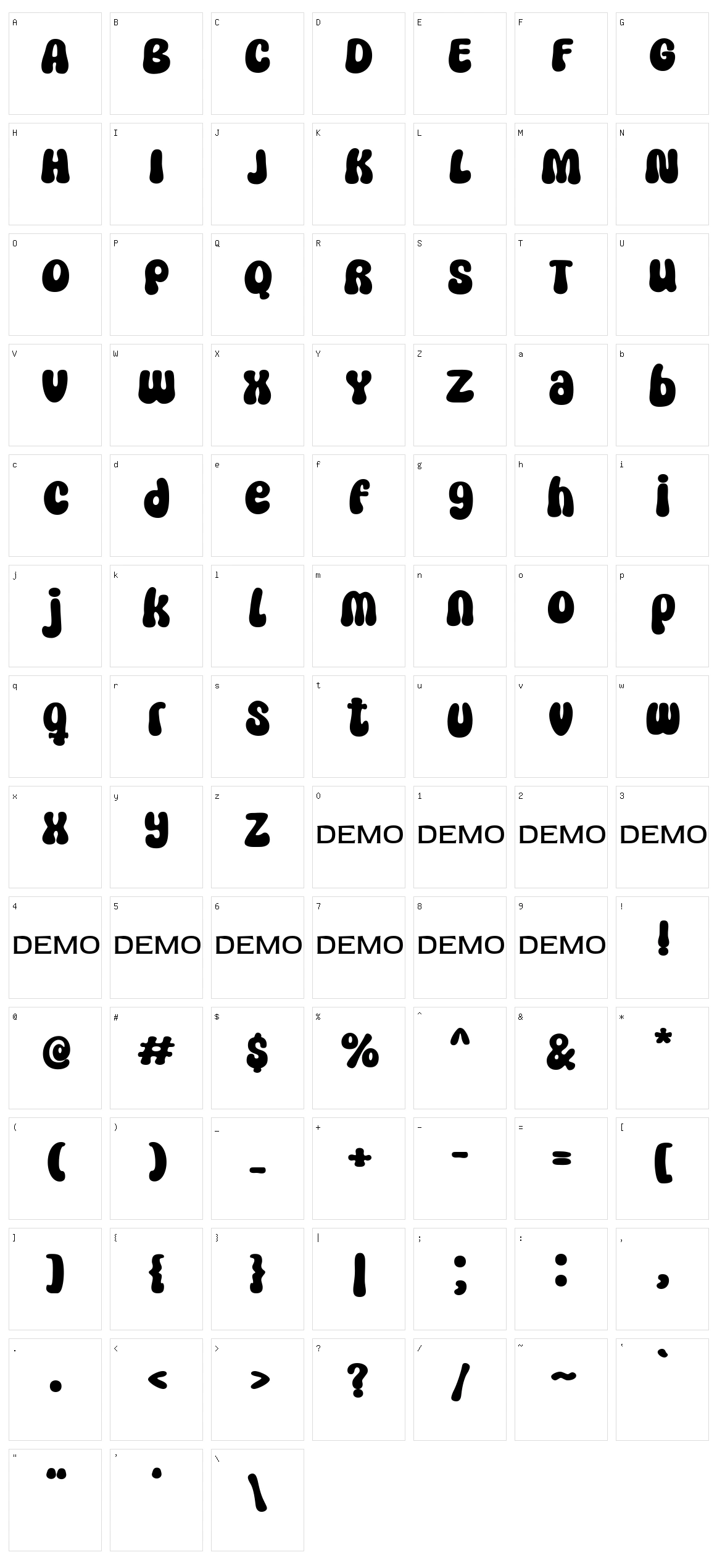
The free font Vaguely Retro is carefully designed by Letterfly Studio, showcasing a thoughtful balance of creativity and usability and falls under the Groovy font style. When you download the ZIP file, it contains only 40.42 KB of font files, making it lightweight and quick to download. Please review the license details below to understand permitted usage and distribution rights. If license information is not available, we recommend using this font for personal projects only or contacting the author directly for commercial usage permissions.